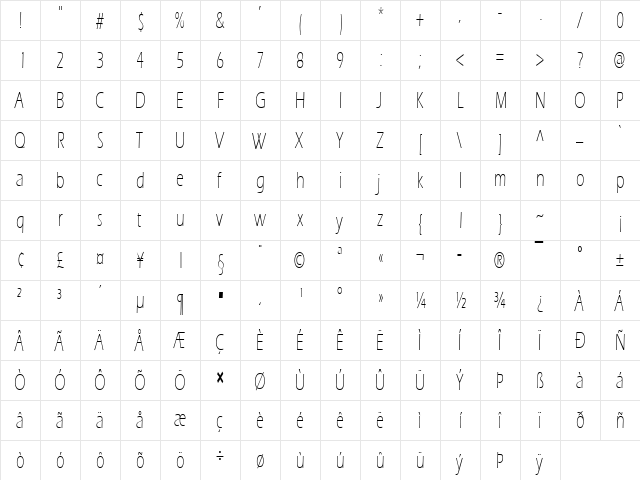
Eric Lite Normal Font Preview
Eric Lite Normal
Design Context for Eric Lite Typeface
Eric Lite offers clean, dependable letterforms without strong stylistic allegiance, making it a practical choice for designers who need flexibility.
Pro Tip: Pair Eric Lite with a font of contrasting weight or personality to build a more expressive typographic hierarchy.